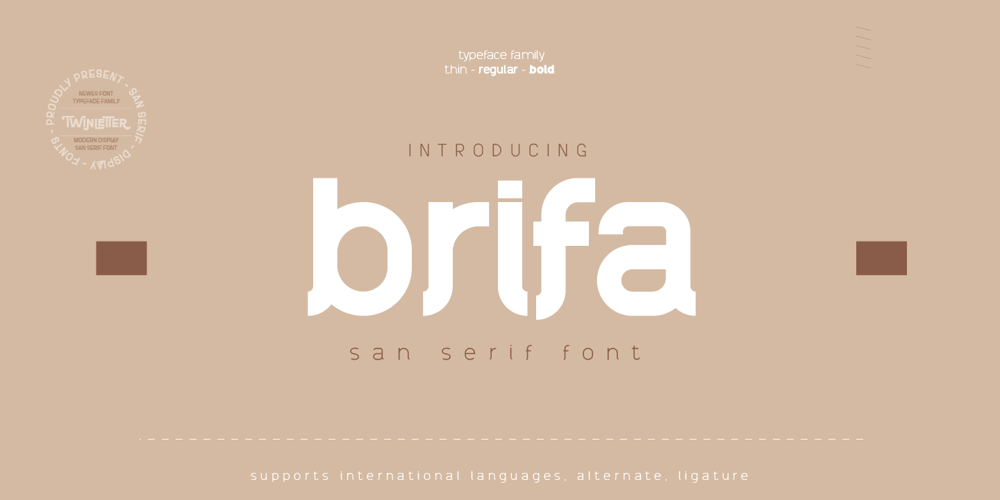
Brifa
Brifa font
Brifa Font Family was designed by Rozikan and published by Twinletter. Brifa contains 3 styles and family package options. Introducing our newest font called Brifa.Fonts that have unique letters create a distinctive impression when applied to words or text.We designed this san serif family font by paying attention to the combination of each letter to create an elegant impression and appearance making it easier for you to use it according to what you need, both formal and non-formal needs.This font is perfect for a wide variety of design projects, sporting events, branding, banners, posters, movie titles, food and beverage, technology, quotes, clothing, logotypes, and more.Of course, your various design projects will be perfect and amazing if you use this font because this font comes with a font family, both for titles and subtitles and sentence text, start using our fonts for your amazing projects.